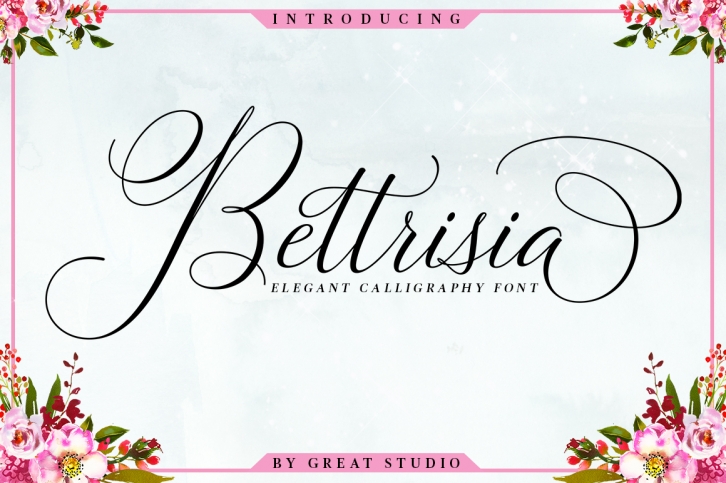
Bettrisia Script is a beautiful font that was designed by Great Studio. It's a great choice for designers and creatives who need such a font. It was released on February 22, 2019 and the file size is 21.41 MB. Bettrisia Script may give a more youthful, expressive and casual look to your project. It is a very beautiful, refined, elegant, and high-quality font.